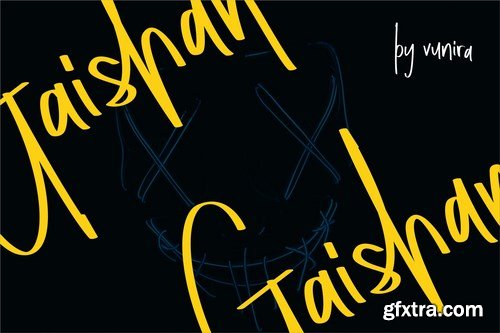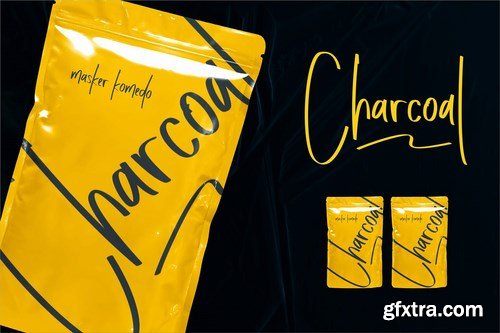
Gaishan | Script Display Font with a calligraphy style, So beautiful on invitation like greeting cards, branding materials, business cards, quotes, posters, and more!